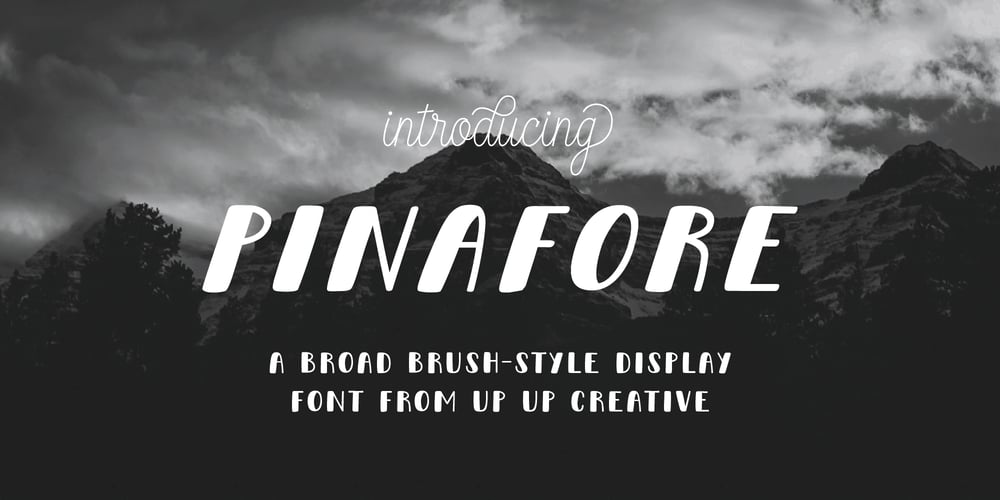
Pinafore Font Family was designed by Julie Green and published by Up Up Creative. Pinafore contains 8 styles and family package options. Introducing Pinafore Complete, a broad, brush-style display font in four styles.Pinafore comes with upright and oblique styles as well as paper cut versions of each. It includes 363 glyphs such as small caps (see note below for more on this), multilingual support (including multiple currency symbols), an awesome ampersand, math symbols, and more.A note about small caps: There are TWO ways to access the small caps in this font family. For OpenType-savvy programs such as Adobe Illustrator and Adobe InDesign, these can be accessed from within the main font files using the character panel or the glyphs panel. For programs that do not access these OpenType features, I have also included small-caps-specific font files. In these files, the regular caps are accessed by typing capital letters and the small caps are accessed by typing lowercase letters.